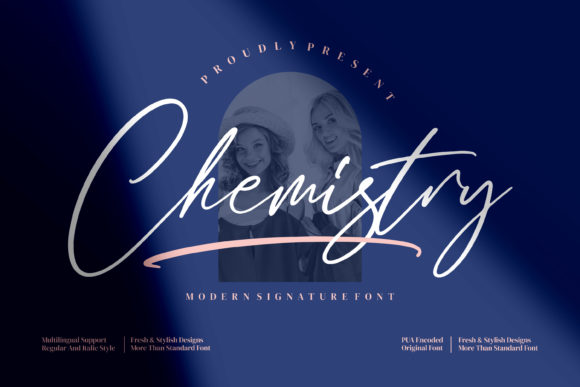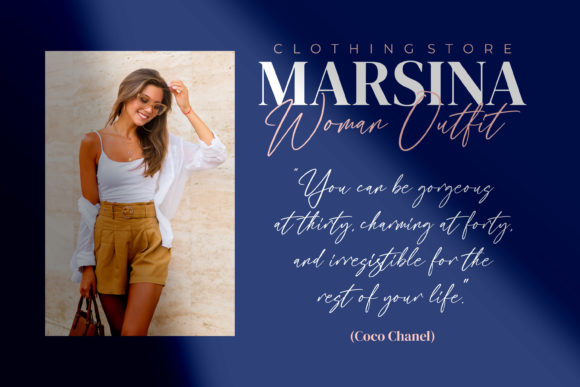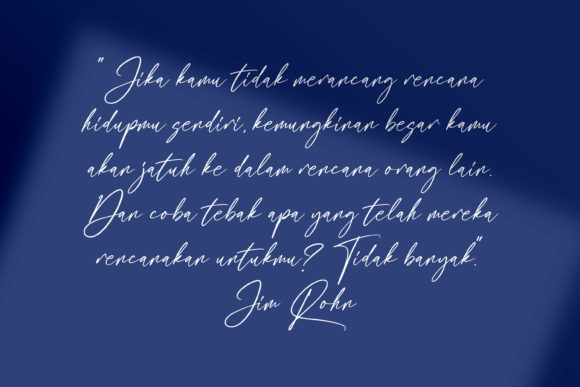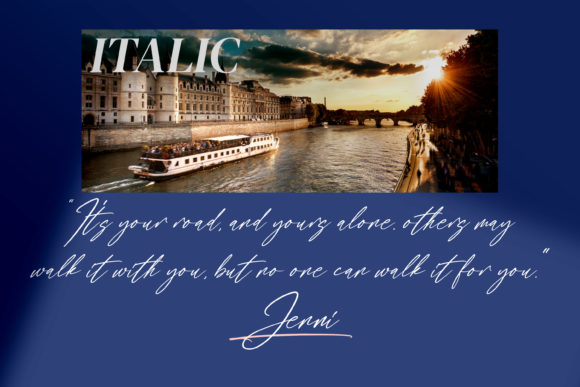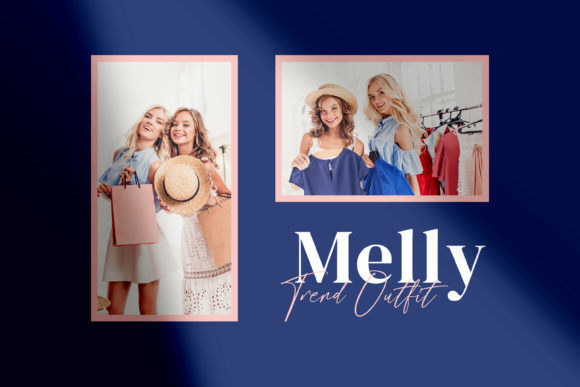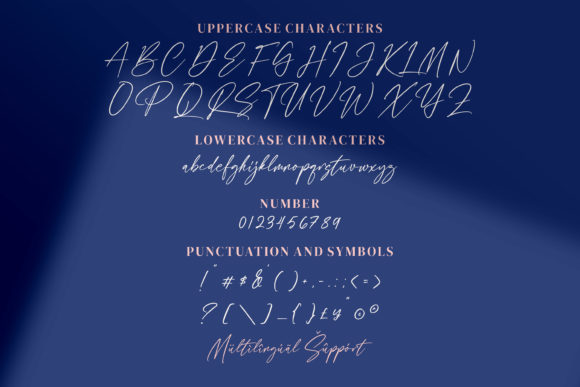
About Chemistry Font
Chemistry is a lovely and delicate script font that exudes elegance and class. This font was particularly crafted for those who need a beautiful and refreshing look to their designs. Chemistry is PUA encoded which means you can access all of the glyphs and swashes with ease!